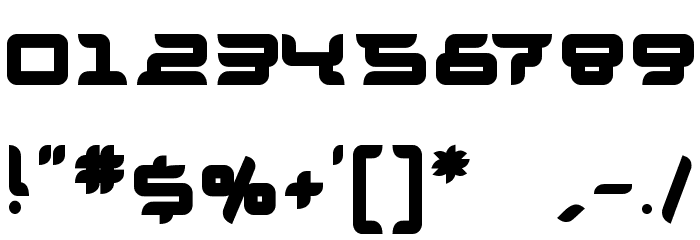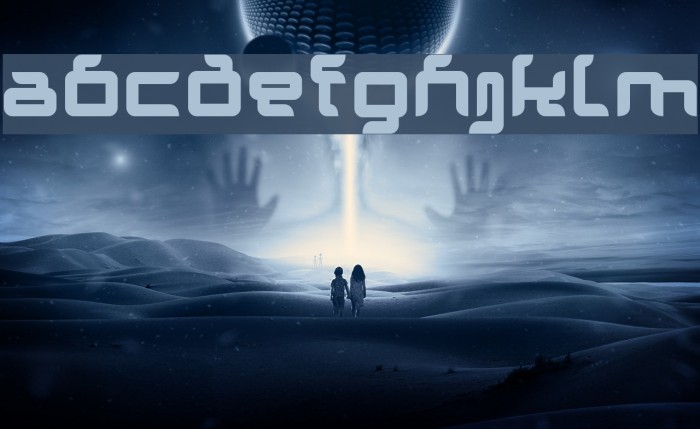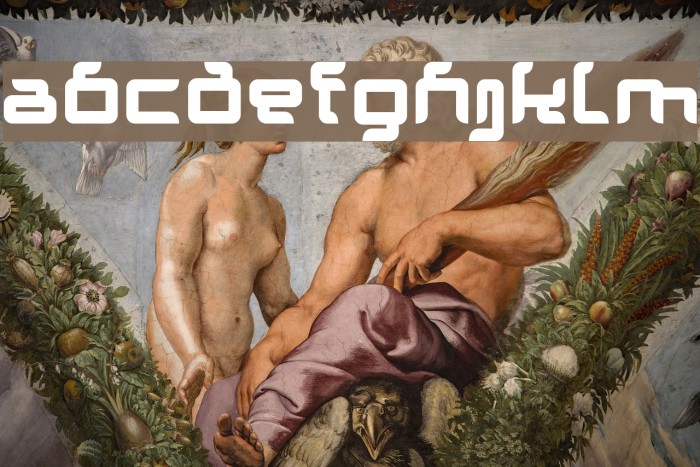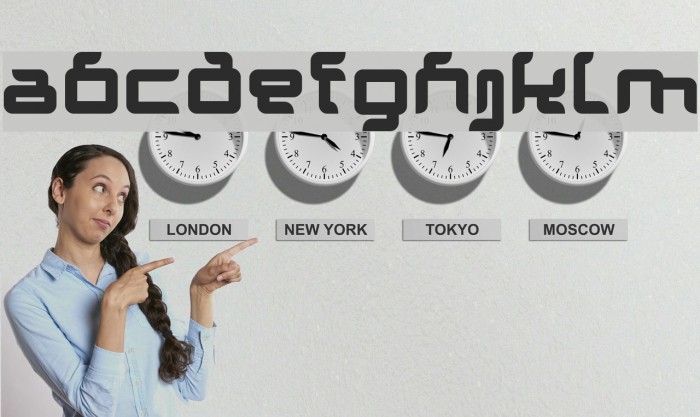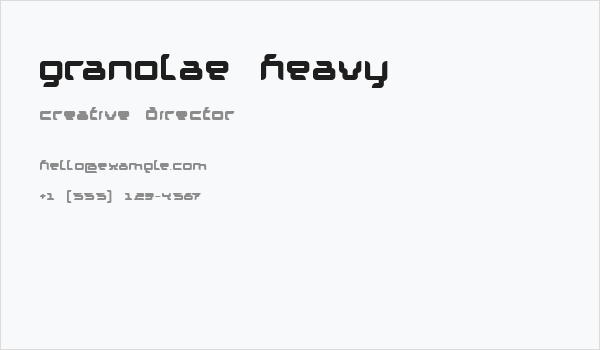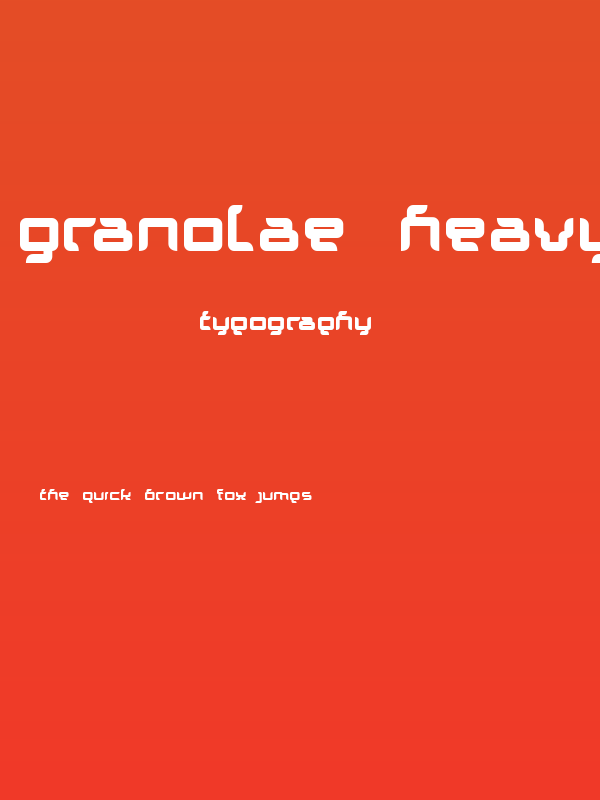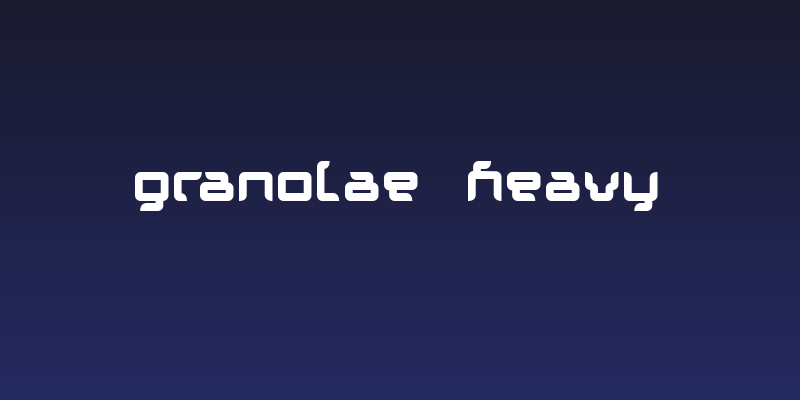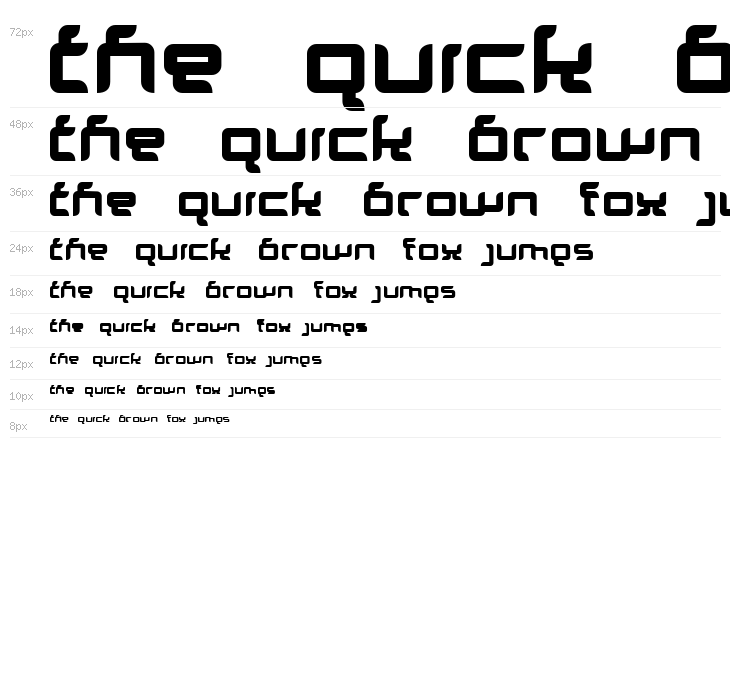
Granolae Heavy Font
Granolae Heavy Description
This font features a bold, geometric style with a modern, futuristic appeal. The characters are constructed with thick, uniform strokes that create a strong visual impact. The design incorporates rounded edges and a blocky structure, giving it a distinctive, tech-inspired look. The uppercase and lowercase letters maintain a consistent height, enhancing readability while retaining a unique aesthetic. The numerals and special characters follow the same design principles, ensuring a cohesive appearance across all elements. This font is ideal for projects that require a bold statement and a contemporary feel.
| Proposed Projects | Ideal for technology branding, video game titles, futuristic posters, and digital interfaces. |